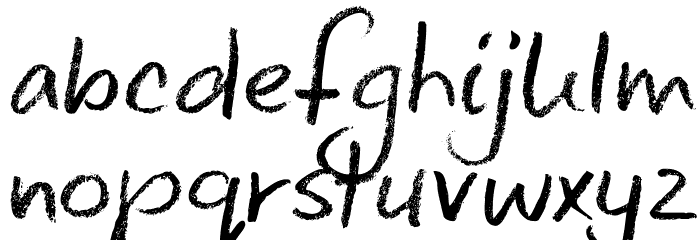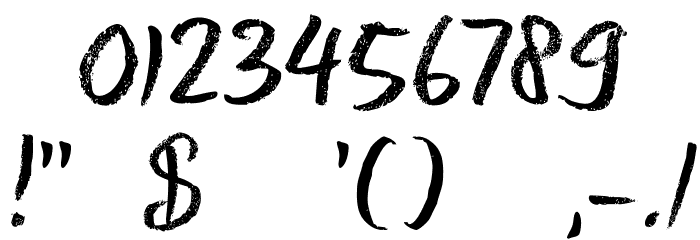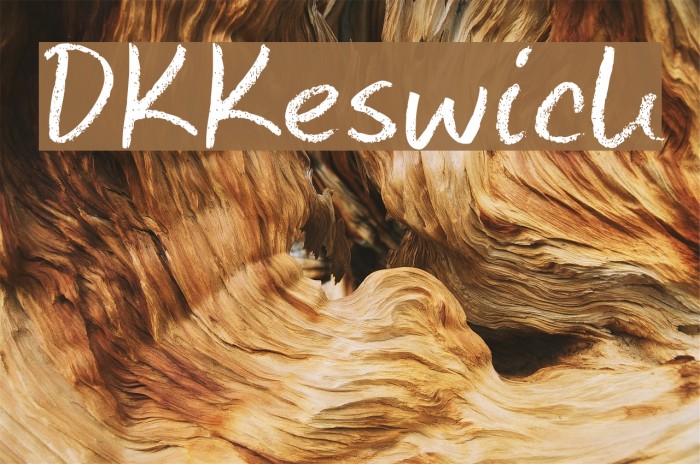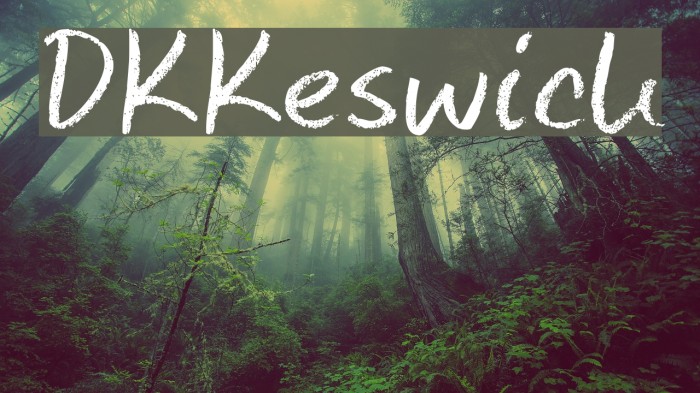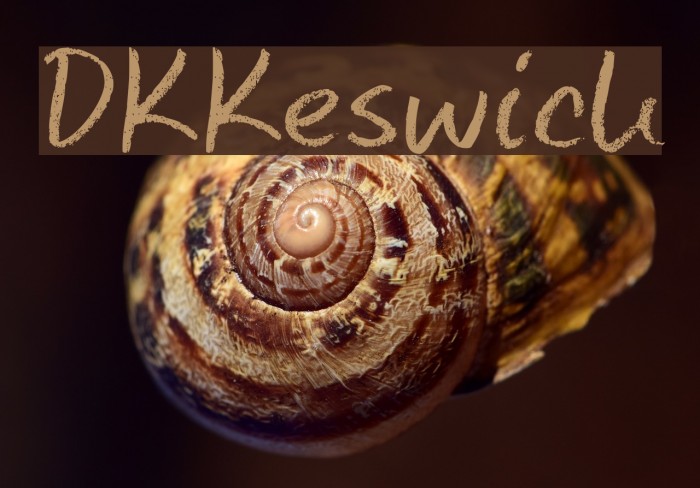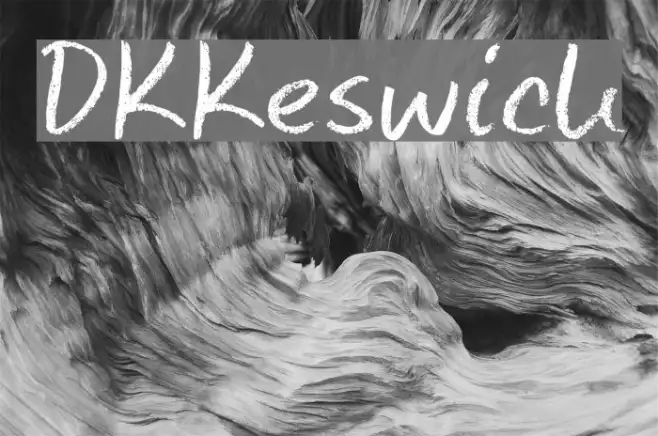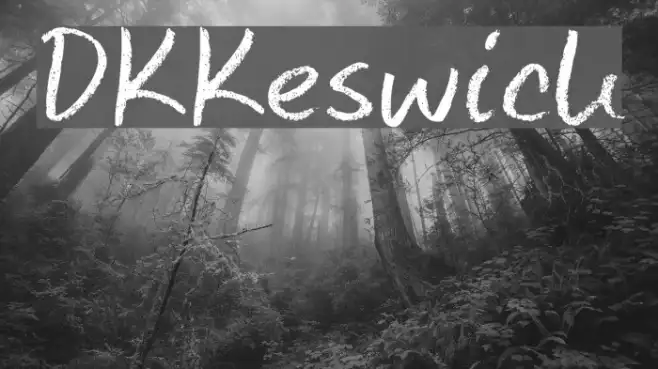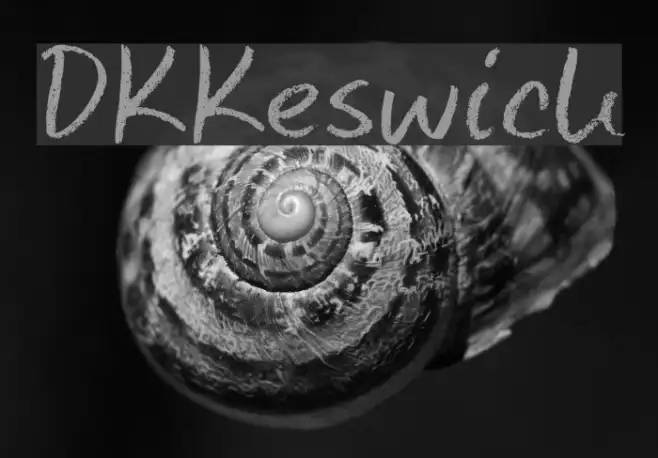
DKKeswick Font
This font exhibits a dynamic and expressive handwritten style, characterized by its bold and energetic strokes. The uppercase letters are slightly slanted, giving a sense of movement and fluidity, while the lowercase letters maintain a consistent flow with a touch of casual elegance. The numbers are bold and clear, ensuring readability. Special characters are creatively integrated, maintaining the overall aesthetic. The texture of the strokes suggests a brush-like quality, adding a tactile dimension to the design. This font is ideal for projects that require a personal and artistic touch, such as invitations, posters, and branding materials.
A bold, expressive handwritten font with brush-like strokes.